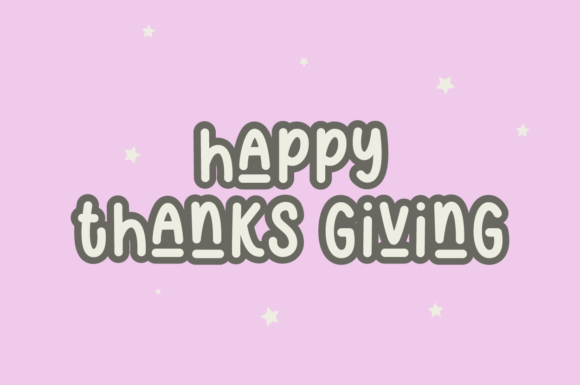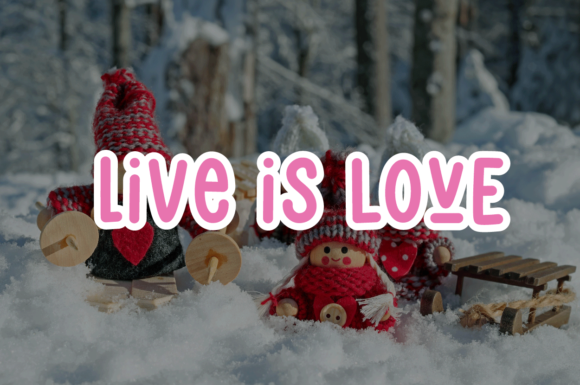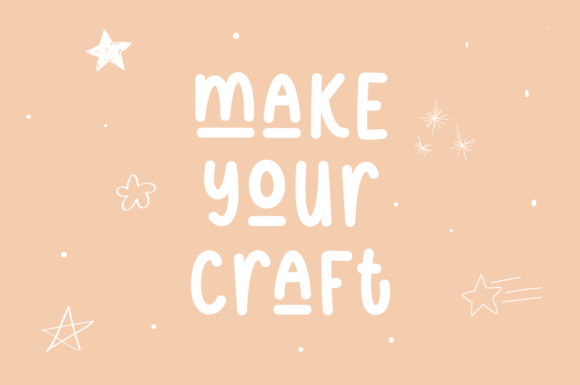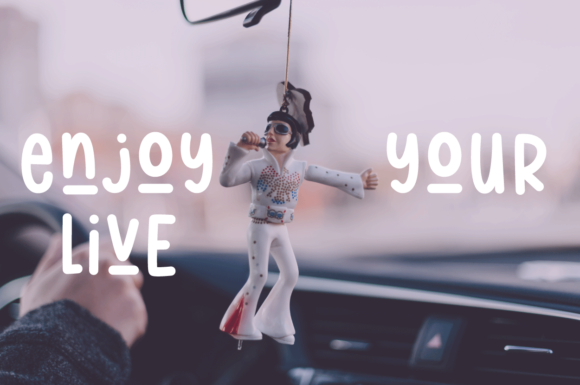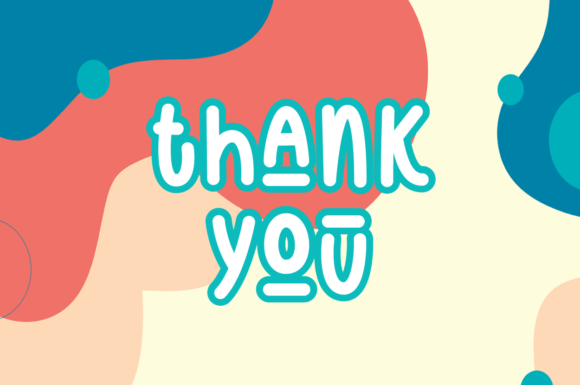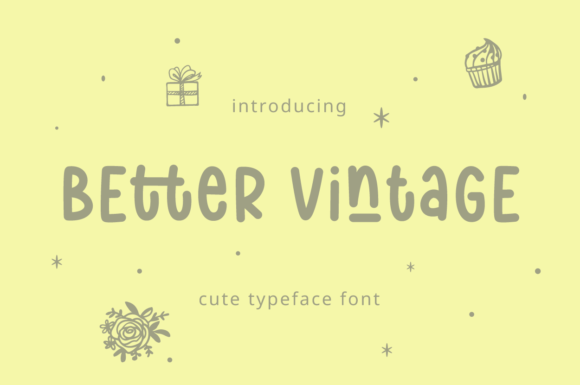
Better Vintage Font: A Simple yet Charming Sans Serif Font for Your Creative Projects
Are you a designer or crafter looking for a font that adds a touch of vintage charm to your projects? Look no further than the Better Vintage Font! This simple and cute sans serif font is perfect for a wide range of creative endeavors, from crafting and scrapbooking to graphic design and digital art. In this article, we’ll take a closer look at the Better Vintage Font, its features, and how you can use it to elevate your projects.
What is Better Vintage Font?
Better Vintage is a modern sans serif font that draws inspiration from classic vintage typography. Its clean lines, simple shapes, and charming character make it an excellent choice for designers and crafters who want to add a touch of nostalgia to their work. The font is designed to be highly versatile, making it suitable for a wide range of applications, from logos and branding to invitations, labels, and more.
Key Features of Better Vintage Font
So, what makes the Better Vintage Font so special? Here are some of its key features:
- PUA Encoding: The Better Vintage Font is PUA (Private Use Area) encoded, which means you can access all of the glyphs and swashes with ease. This makes it simple to use the font in your designs, even if you’re not a typography expert.
- Simple and Cute Design: The font features a simple, sans serif design that’s both clean and charming. Its cute character makes it perfect for projects that require a touch of personality.
- Highly Versatile: The Better Vintage Font is designed to be highly versatile, making it suitable for a wide range of applications, from digital art to crafting and scrapbooking.
Benefits of Using Better Vintage Font
So, why should you choose the Better Vintage Font for your projects? Here are some of the benefits of using this charming font:
- Easily Readable: The font’s simple design makes it easily readable, even at small sizes. This makes it perfect for projects that require a clear, legible font.
- Unique Character: The Better Vintage Font has a unique character that sets it apart from other sans serif fonts. Its charming design adds a touch of personality to any project.
How to Use Better Vintage Font in Your Projects
Using the Better Vintage Font in your projects is easy! Here are some ideas to get you started:
- Crafting and Scrapbooking: Add a touch of vintage charm to your scrapbook pages, cards, and other crafting projects with the Better Vintage Font.
- Graphic Design: Use the font in your graphic design projects, such as logos, branding, and advertising materials.
- Digital Art: Incorporate the Better Vintage Font into your digital art, such as illustrations, paintings, and mixed media projects.
In conclusion, the Better Vintage Font is a simple yet charming sans serif font that’s perfect for designers and crafters looking to add a touch of vintage charm to their projects. Its PUA encoding, simple design, and highly versatile nature make it an excellent choice for a wide range of creative endeavors. Whether you’re working on a crafting project, graphic design, or digital art, the Better Vintage Font is sure to become a favorite in your collection.